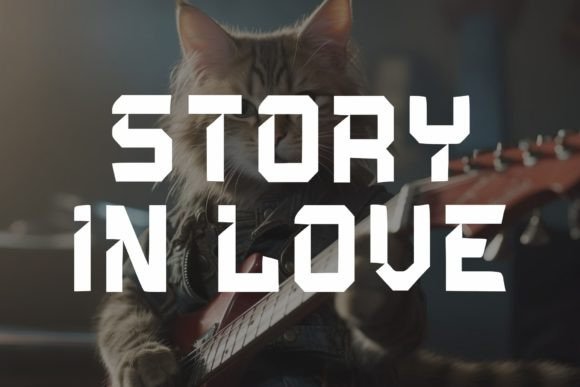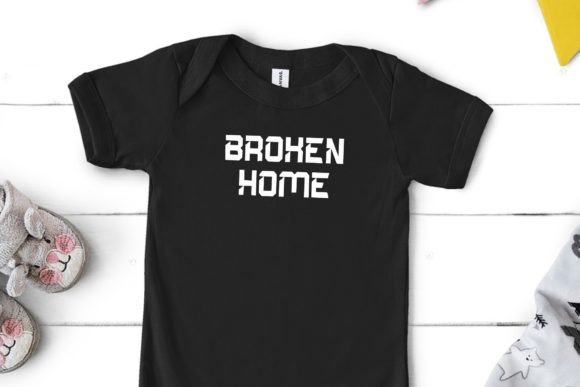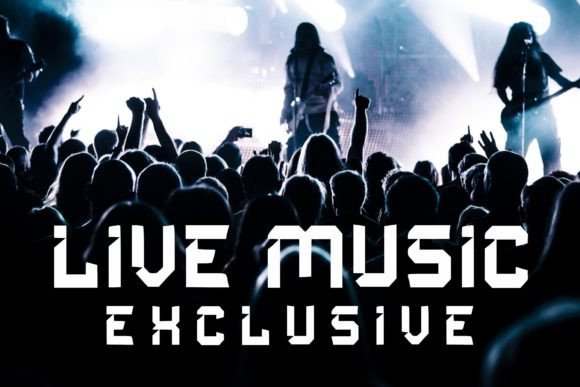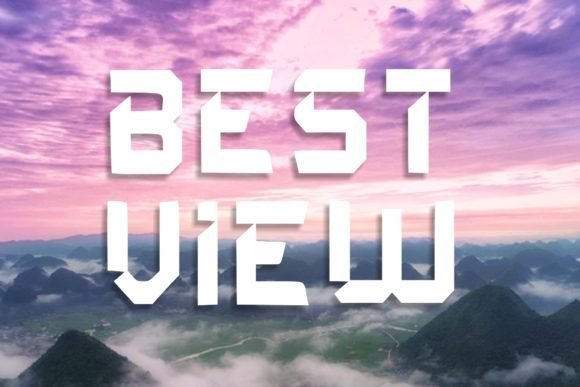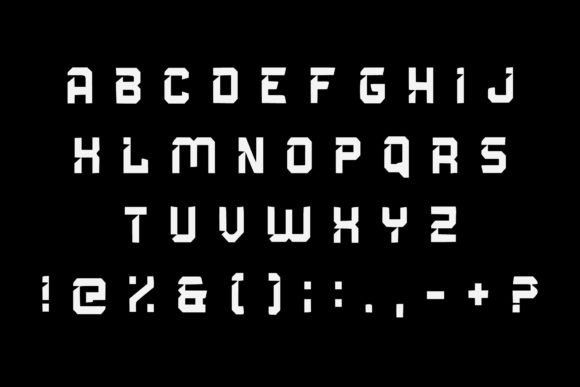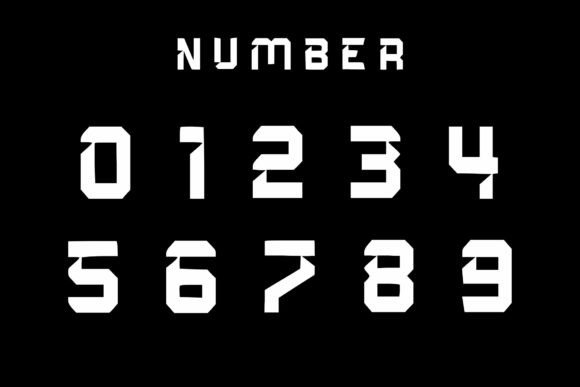
Introducing Brother Font: The Ultimate Racing-Styled Display Font
In the world of typography, fonts play a crucial role in conveying messages, expressing emotions, and creating visual identities. For designers and crafters, having the right font can make all the difference in elevating a project from ordinary to extraordinary. This is where Brother Font comes in – a modern and assertive racing-styled display font that’s poised to become an invaluable asset in your font library.
What is Brother Font?
Brother Font is a sleek and high-energy display font designed to add a touch of speed and dynamism to any design project. Its racing-inspired style is perfect for creating attention-grabbing headlines, titles, and slogans that demand attention. With its clean lines, sharp edges, and bold typography, Brother Font exudes confidence and assertiveness, making it an excellent choice for designers looking to create a lasting impression.
Key Features of Brother Font
- Modern and Assertive Design: Brother Font boasts a contemporary design that’s both modern and assertive, making it perfect for designers who want to create a bold statement.
- Racing-Styled: Inspired by the world of racing, this font is designed to evoke speed, energy, and dynamism, making it ideal for projects that require a sense of urgency and excitement.
- Display Font: Brother Font is specifically designed as a display font, making it perfect for headlines, titles, and short texts that require a strong visual impact.
- Versatile: Despite its racing-inspired design, Brother Font is surprisingly versatile and can be used across various design projects, from sports and automotive to technology and lifestyle.
Why Choose Brother Font?
How to Use Brother Font
- Use it for Headlines and Titles: Brother Font is specifically designed for headlines and titles, so use it to create attention-grabbing text that demands attention.